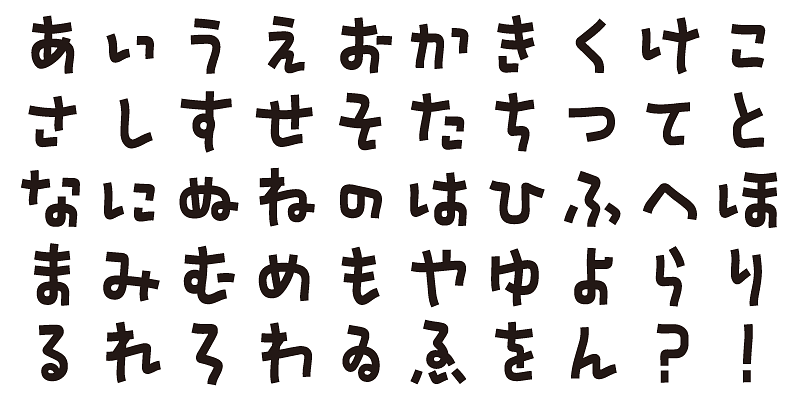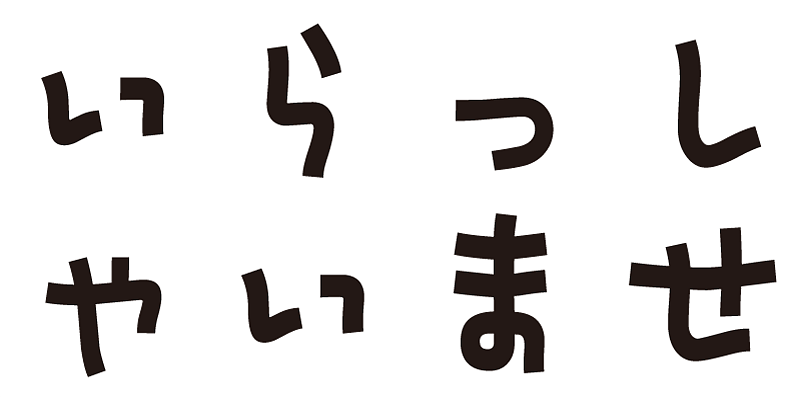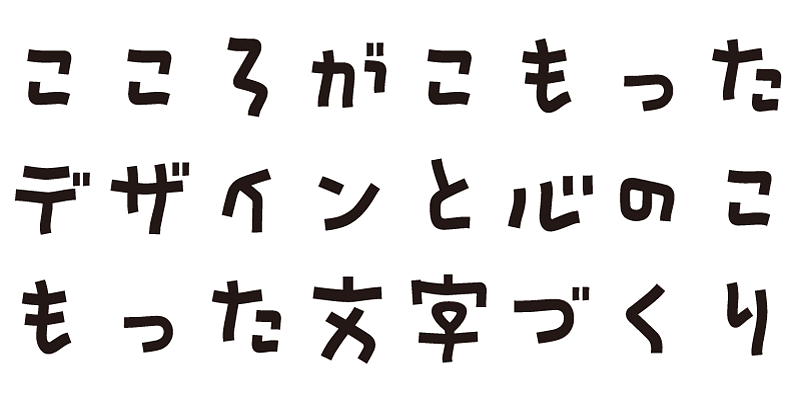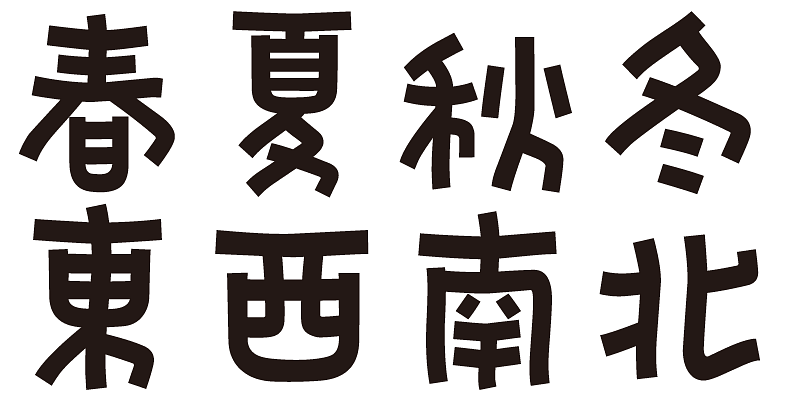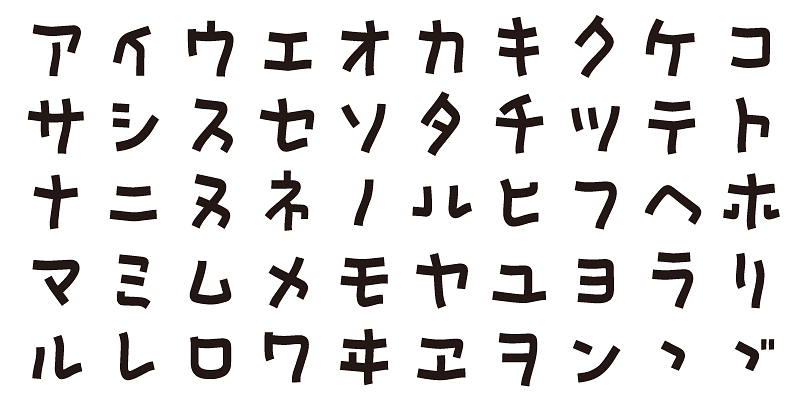
This is a handwritten-inspired typeface, partially rooted in the elegance of the tensho style (篆書). an ancient seal script known for its stylized forms, traditionally used in official seals and inscriptions.
This font includes top 1,000 kanji characters chosen from character frequency tables made by newspaper companies, publishing houses and linguistic research institutes, plus about 400 alphanumeric, kana characters and punctuation marks.
We design typefaces with the hope that they will add underlying meaning to words expressed. We wish the user to feel good and experience comfort and joy when using these typefaces.